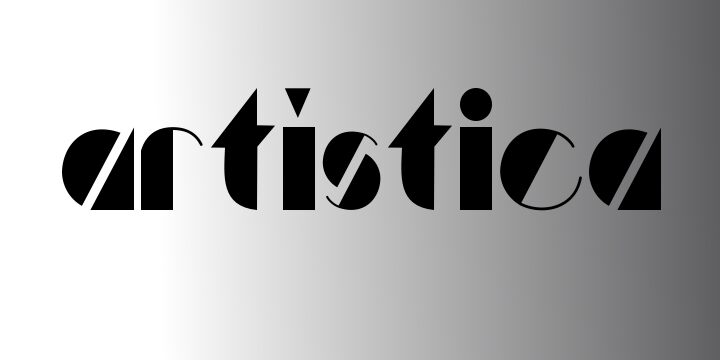
Artistica by Manuel Ramos Garcia is a free groovy retro display font with theatrical, sharply cut letterforms. Broad circular bodies meet slender verticals and deep diagonal slices. The repeated wedges give the lettering a lively optical rhythm.
Its 1970s fashion-poster character suits album artwork, nightclub branding, and event posters. On packaging, the dramatic silhouettes can turn a product name into a compact decorative emblem. It is especially convincing for music, fashion, and performance projects that draw on flamboyant period graphics.